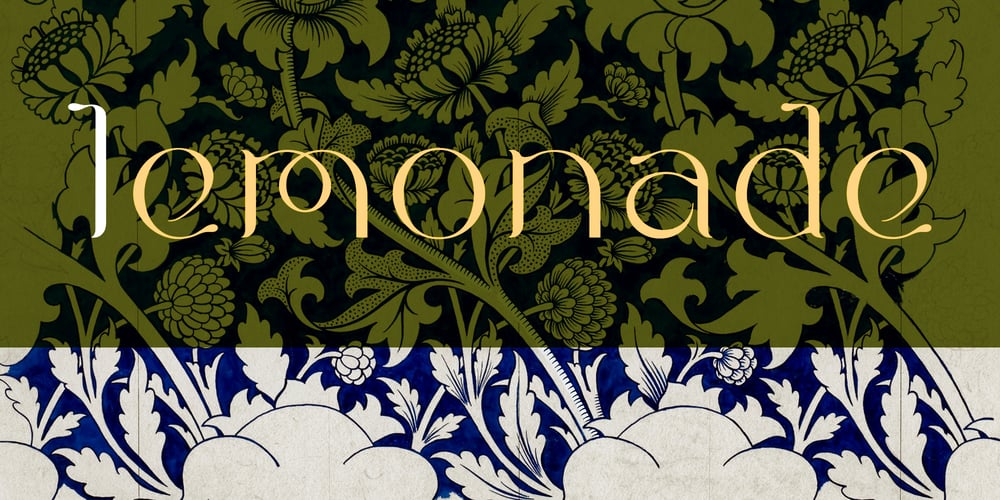
Lemongarden Font Family was designed by David Szabo and published by LostandFoundry. Lemongarden contains 2 styles and family package options. Lemongarden is a stunning new serif font for designers from LostandFoundry. This unique font is loaded with character and identity and has been designed with social media creators in mind.Lemongarden is a must-have addition to your font library and can be used in headlines, logos, book designs, packaging designs and wedding designs. And of course online in websites, blogs, vlog titles, Youtube creator titles and social media post titles.Lemongarden comes in 2 weights and supports French, German and other European languages.